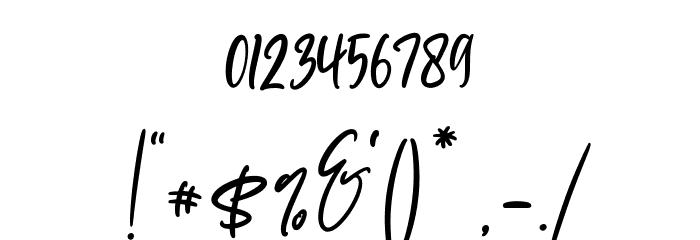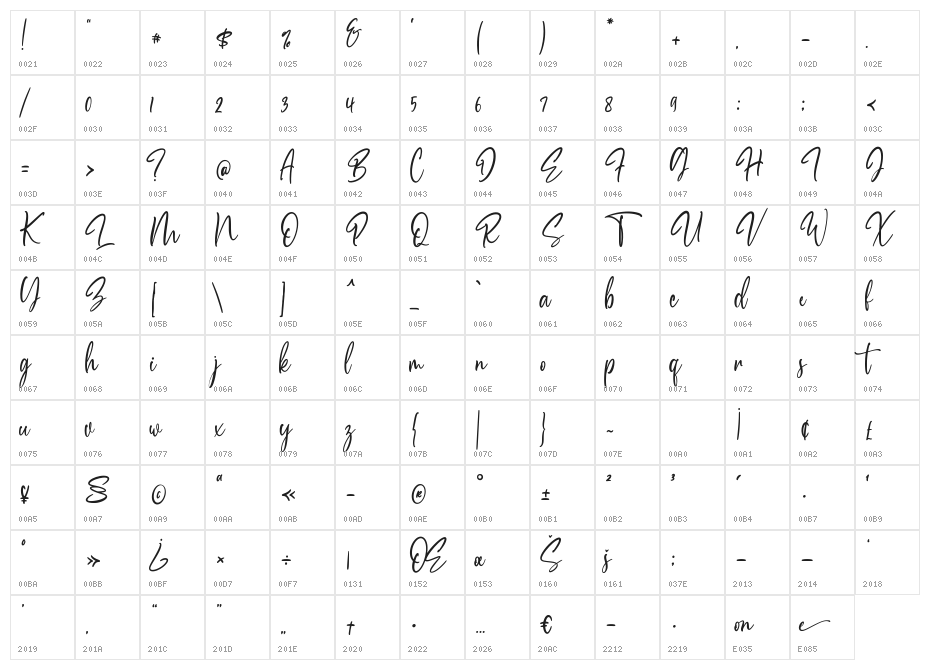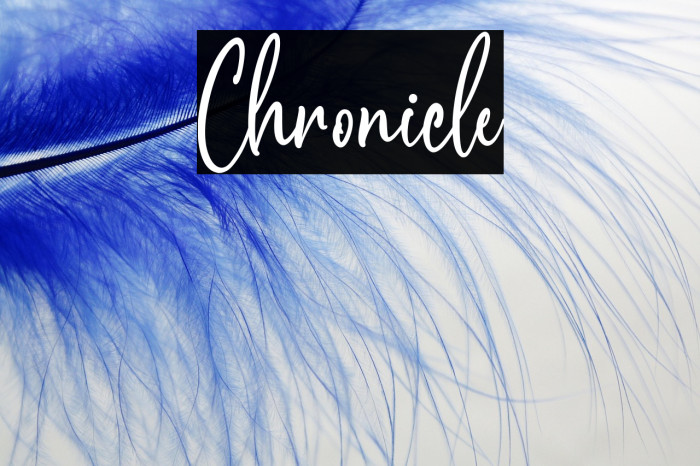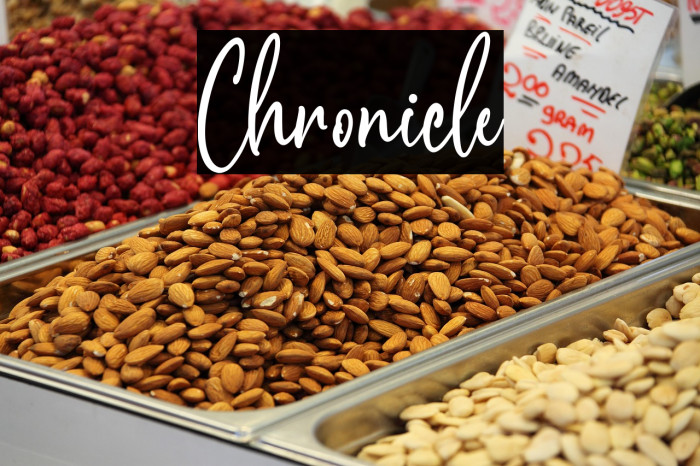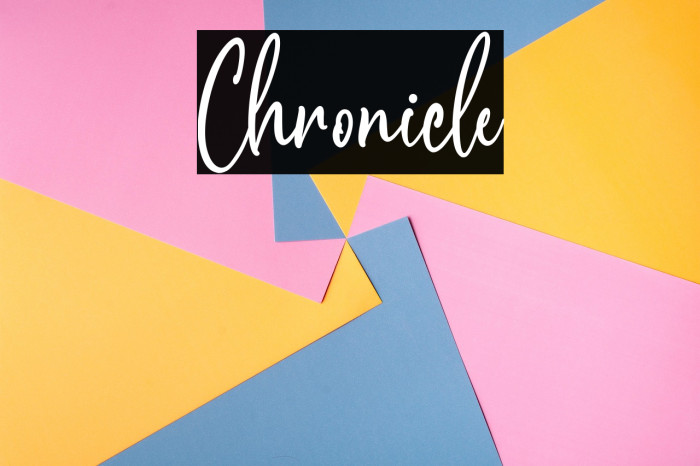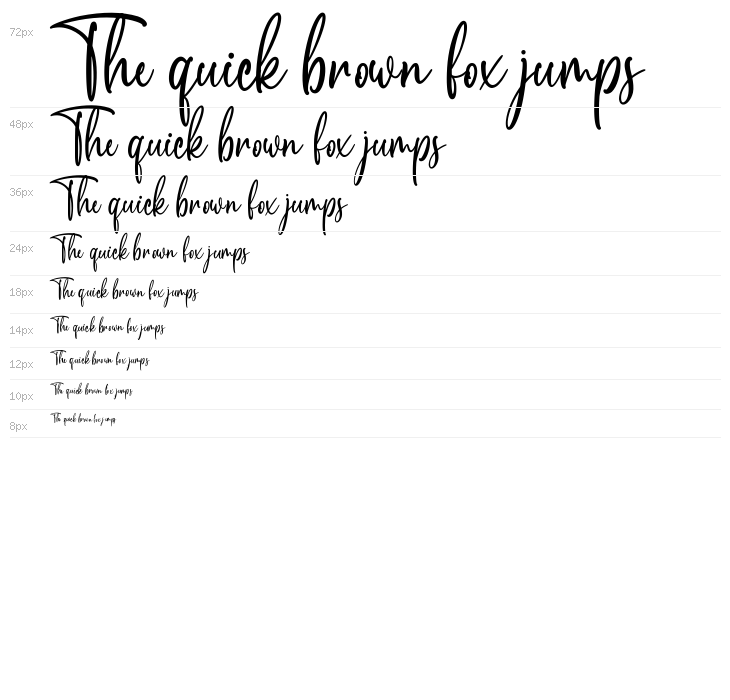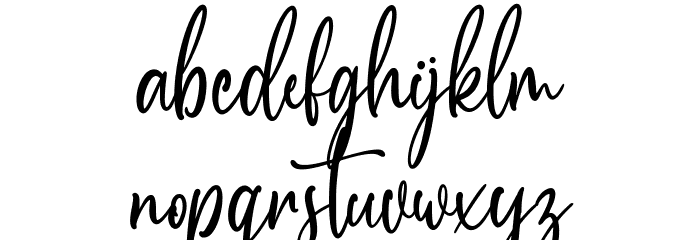
Chronicle Font
Chronicle Description
This elegant script font features a flowing, cursive style with smooth, connected strokes that give it a handwritten appearance. The uppercase letters are characterized by their tall, sweeping ascenders and descenders, adding a sense of grace and sophistication. The lowercase letters maintain a consistent rhythm, with rounded forms and subtle flourishes that enhance the overall aesthetic. The numerals are designed to match the script style, with a slightly playful touch. Special characters are integrated seamlessly, maintaining the font's cohesive look. This font is ideal for projects that require a personal, artistic touch.
| Proposed Projects | Wedding invitations, greeting cards, branding, and logo design. |